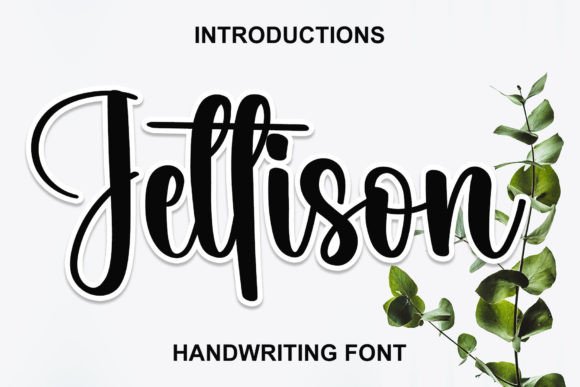
Step into the realm of elegance and sophistication with Jettison Font, a breathtaking script font family that exudes timeless charm and contemporary flair. Inspired by classic calligraphy, Jettison captivates with its balanced strokes, varied letterforms, and impeccable form, elevating your projects to new heights of beauty.
Immerse yourself in the world of Jettison, where words dance with grace and fluidity, leaving an unforgettable impression on your audience. This stunning font is meticulously crafted to enhance the allure of wedding welcome signs, adding a touch of romance and personalization to your special day.
With its timeless appeal, Jettison effortlessly complements various design aesthetics, from classic to modern and everything in between. Whether you're crafting invitations, branding materials, or social media posts, Jettison serves as the perfect canvas for your creative expression.
Unleash your creativity and let Jettison guide you to design masterpieces that capture hearts and imaginations. Its versatility knows no bounds, allowing you to create elegant logos, captivating posters, stunning social media graphics, and so much more.
Join the ranks of discerning designers who have discovered the magic of Jettison Font, transforming their creative visions into captivating realities. Embrace the beauty, elegance, and timeless appeal that Jettison brings to your projects.
Let Jettison Font be your muse, inspiring you to create designs that resonate with your audience, leaving a lasting impression that whispers of sophistication and grace.